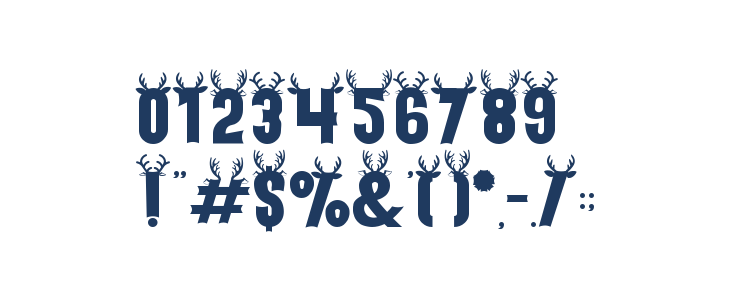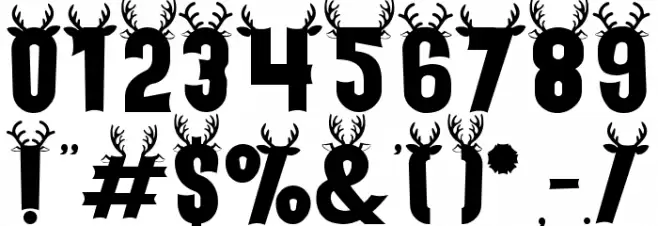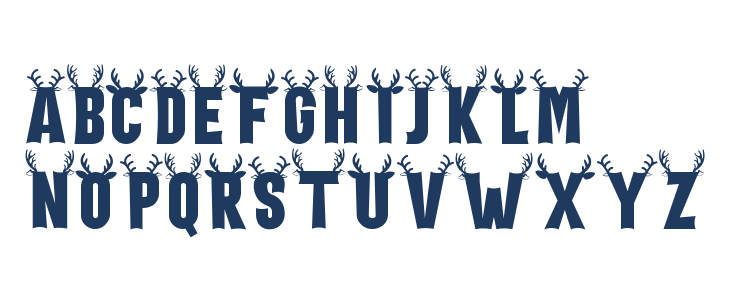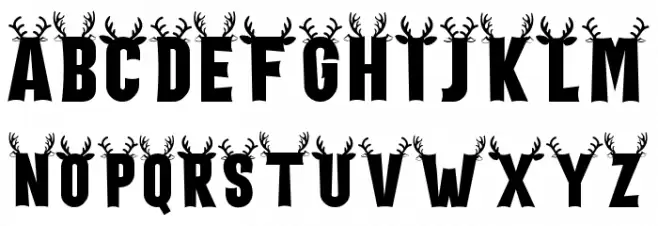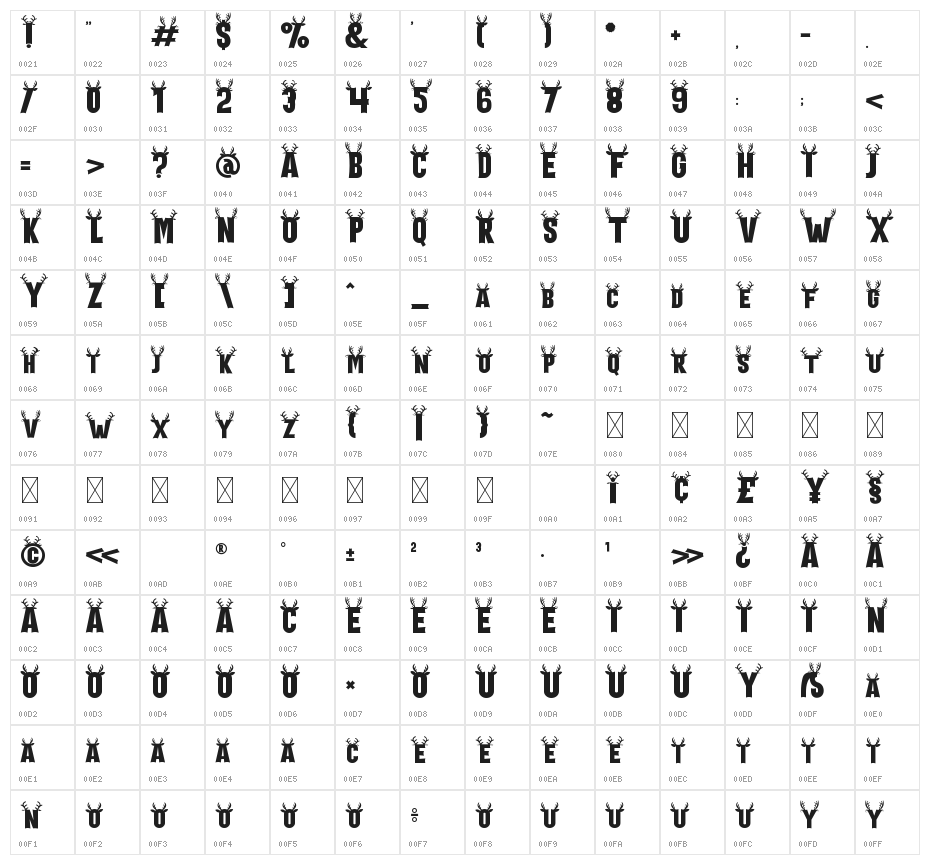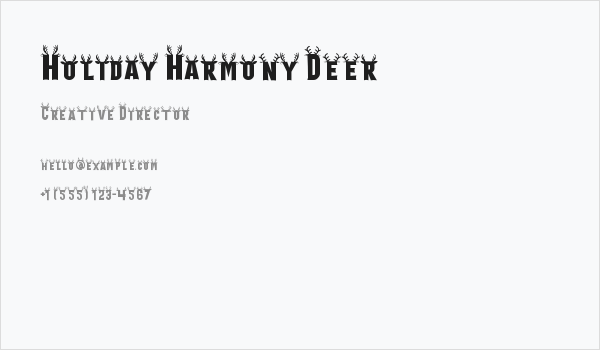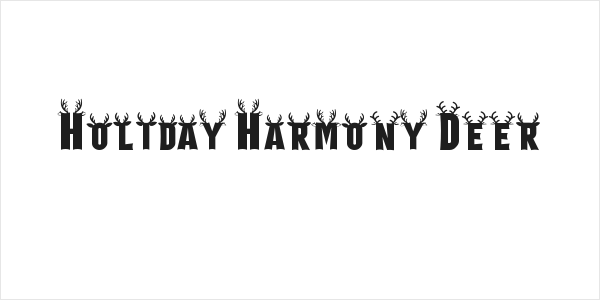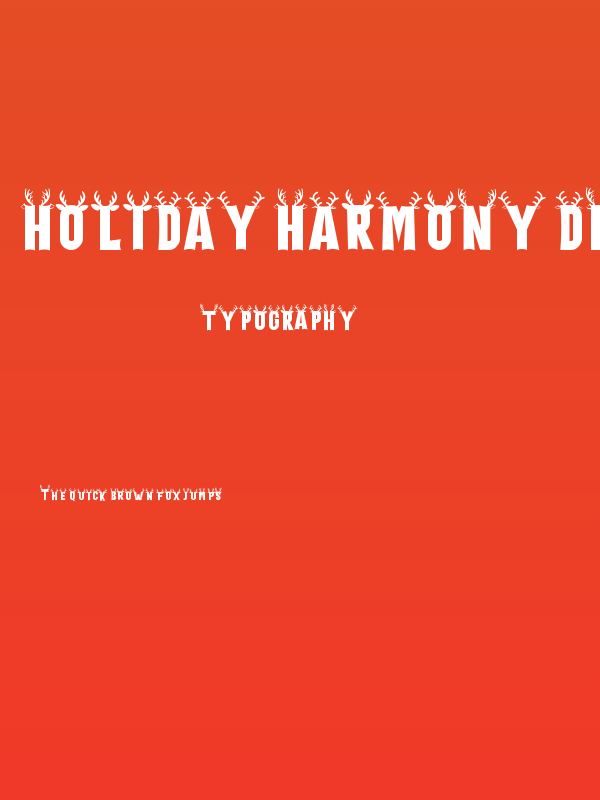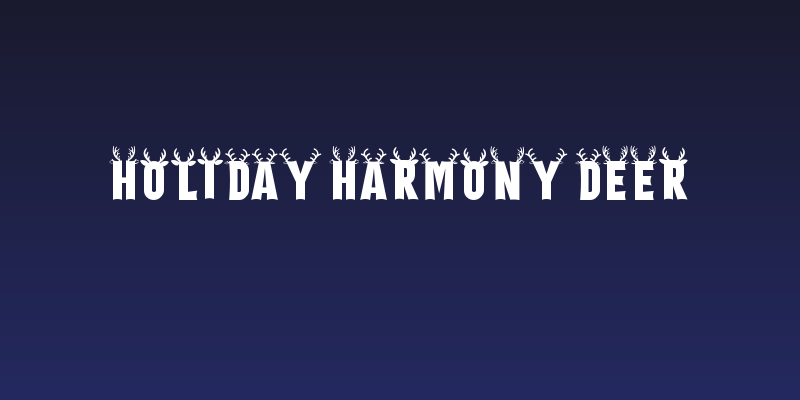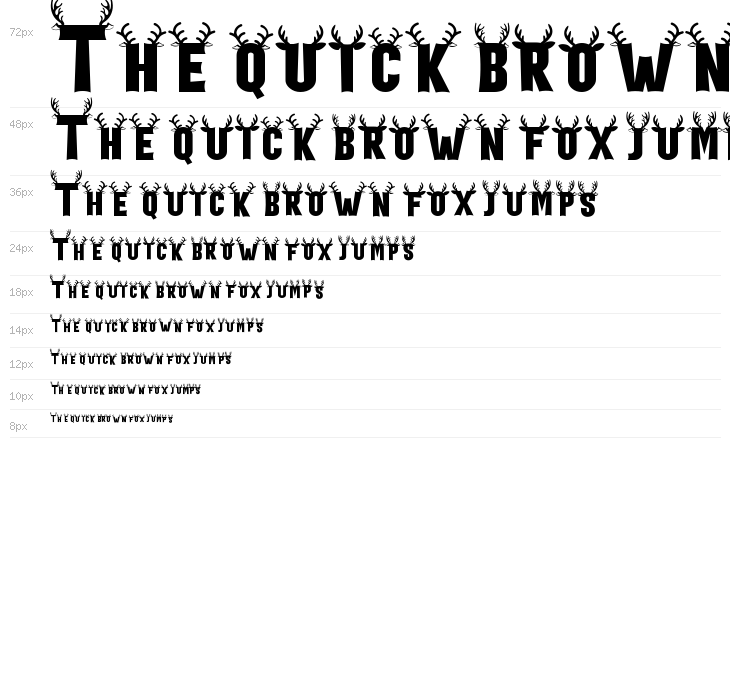
Holiday Harmony Deer Font
Holiday Harmony Deer Description
A bold, decorative display font featuring antler-like embellishments on top of each character, evoking a festive and whimsical holiday theme. The letterforms are geometric and blocky, with consistent stroke thickness and playful accents.
| Overall Style | Decorative, Festive, Whimsical |
| Use Case | Headlines, Posters, Logos, Holiday-themed graphics |
| Proposed Projects | Holiday cards, seasonal posters, event invitations, festive branding, children's party materials. |